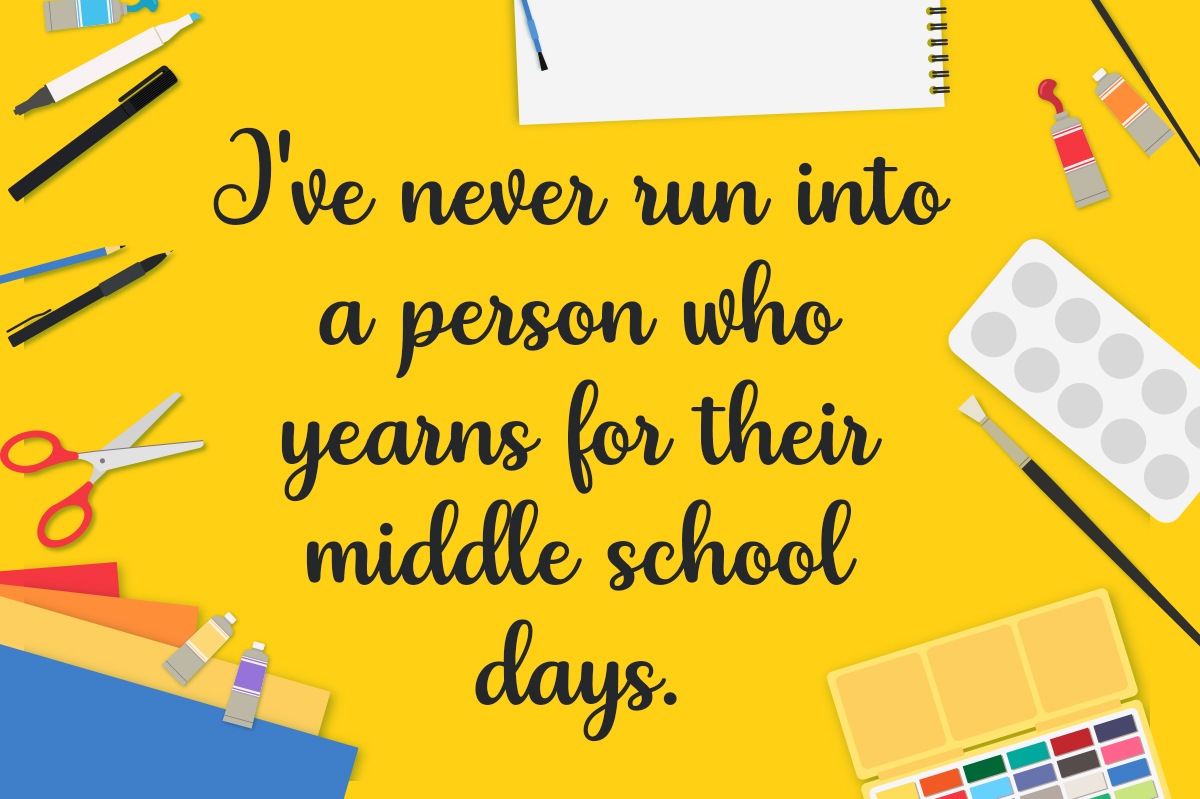
School Days Font
About School Days Font
School Days is a friendly cursive script font, perfect for a wide range of designs. Reminiscent of school days, this nostalgic font is a great way to anchor your typographic designs in a jovial way.